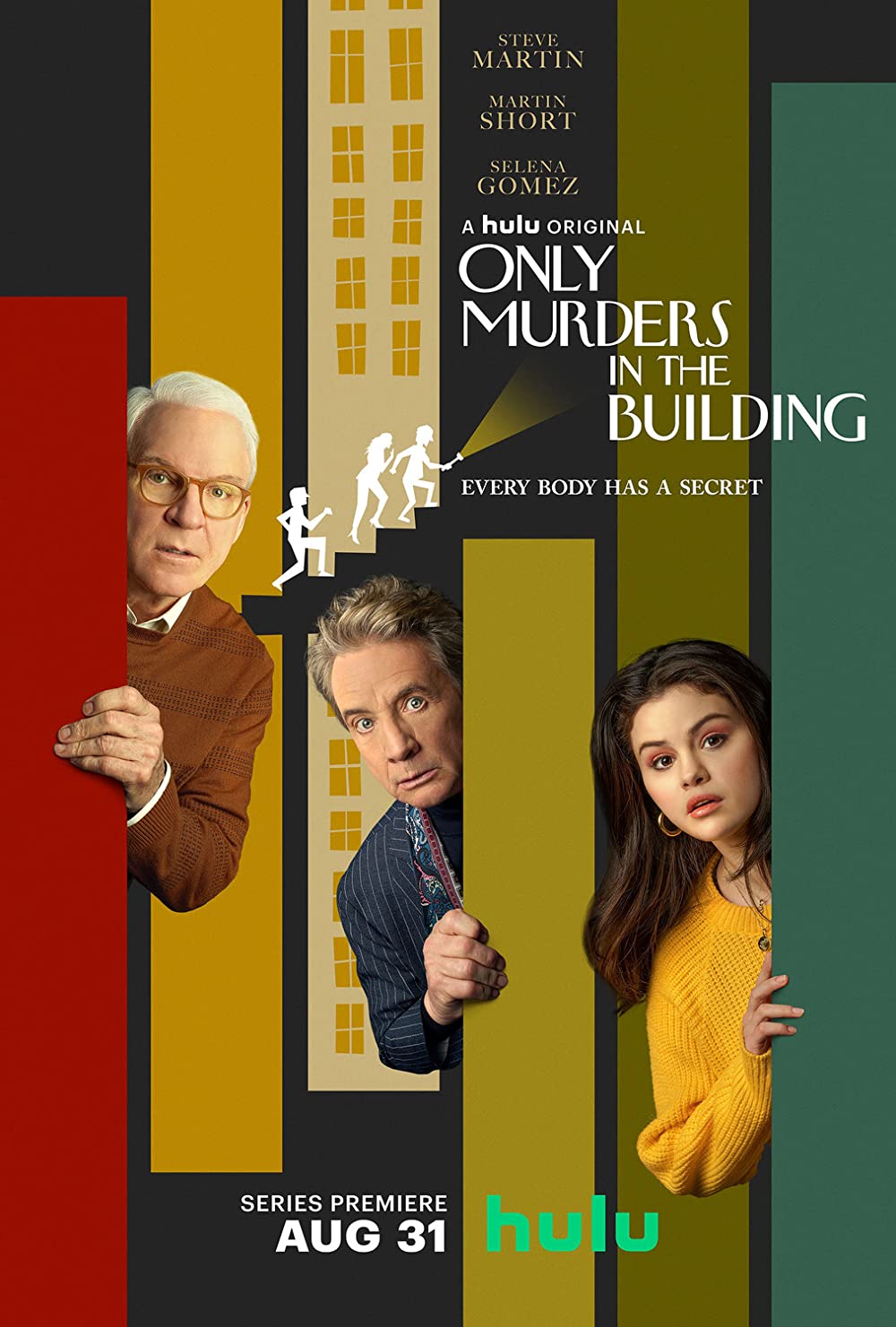
Only Murders in the Building Font
ComedyOnly Murders in the Building is an American mystery comedy-drama television series created by Steve Martin, John Hoffman, and Ed Weeks. The series premiered on Hulu on August 31, 2021.
The Only Murders in the Building title in the poster seems to be set in New Yorker Type, a serif typeface designed by Gert Wiescher in 2007. It was inspired by the lettering on the cover of the New Yorker magazine. In 2020, it was revised to New Yorker Type Pro including seven weights and support for Greek, Cyrillic, and Latin characters.